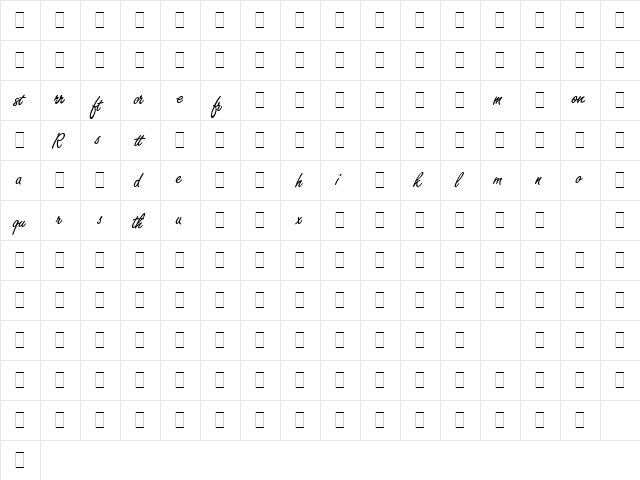
Freestyle Script Alts LET Plain
Design Context for Freestyle Script Alts LET Typeface
Freestyle Script Alts LET flows with the natural rhythm of handwritten lettering, making it ideal for designs that call for warmth and personal expression.
Font Pairing: Combine Freestyle Script Alts LET with a simple geometric sans for maximum contrast — the tension between flowing curves and clean structure is a classic typographic pairing.
Pro Tip: Pair Freestyle Script Alts LET with a clean sans-serif for supporting text. The contrast between fluid script and geometric structure creates an elegant typographic hierarchy.